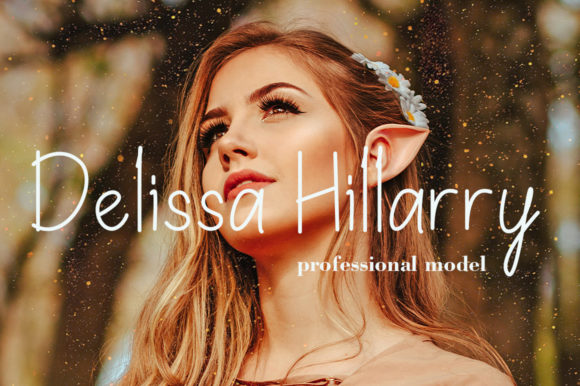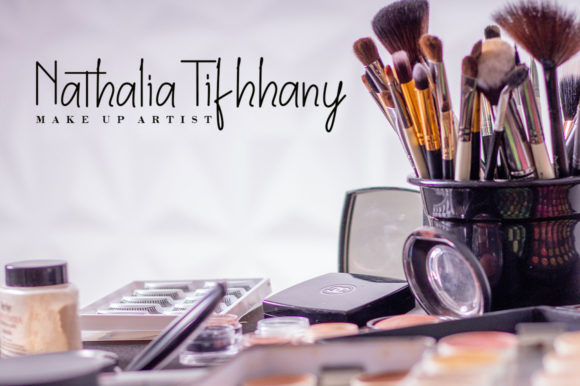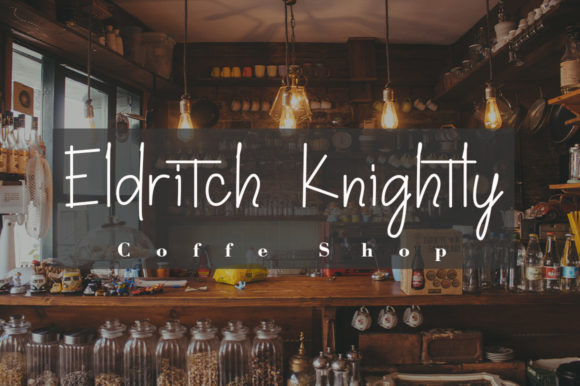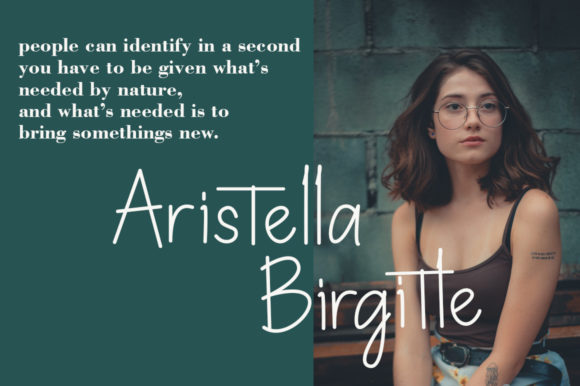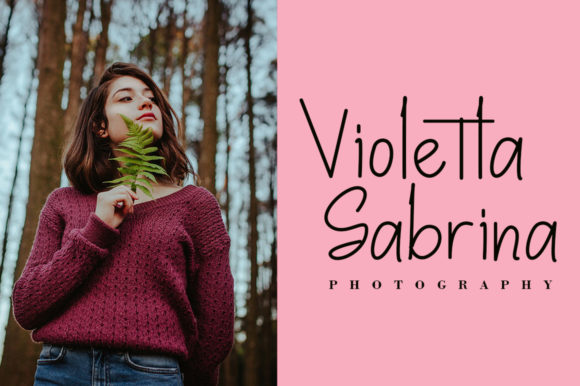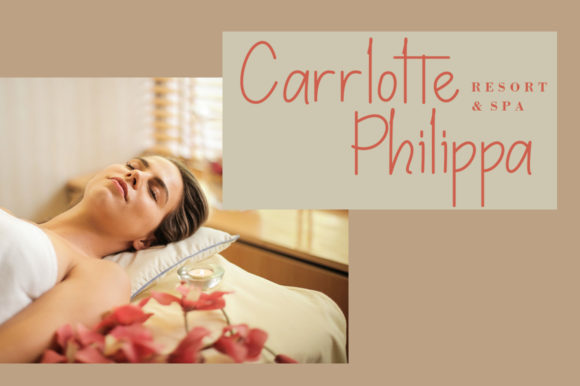
About Murangkalih Font
Port Bastwick is a simple script font that exudes a sense of beauty and elegance. Its unique design makes it a versatile choice for a variety of creative projects. Let’s revise this text into a SEO-friendly 400-word version:
Port Bastwick is a simple script font that stands out with its unique design. Crafted with meticulous attention to detail, Port Bastwick is designed to deliver the expected outcomes, making it a valuable addition to any font library. Whether you’re working on a branding project, designing a logo, or creating a website, Port Bastwick can add a touch of elegance and modernity to your creations.
One of the key features of Port Bastwick is its simple and elegant design. Unlike traditional fonts, Port Bastwick is designed with a unique script style that gives it a unique character. This simple and elegant design not only makes Port Bastwick stand out but also adds a personal touch to your designs, making them more engaging and appealing to the audience.
Port Bastwick is more than just a stylish script font. It’s a versatile design tool that can enhance the aesthetic appeal of your projects. Its elegant and modern look makes it suitable for a wide range of applications, from logos and branding to quotes, notes, tees, and any product design. The versatility of Port Bastwick makes it a valuable addition to any designer’s toolkit.
In addition to its aesthetic appeal, Port Bastwick also offers practical benefits. Its clear and legible design makes it suitable for both print and digital mediums. Whether you’re designing a business card or creating a website, Port Bastwick ensures that your text is always easy to read and understand.
Port Bastwick is not just a font; it’s a design asset. Its potential to enhance any creation makes it a valuable addition to any designer’s toolkit. With Port Bastwick, you can add a touch of elegance and sophistication to your designs, making them more appealing and engaging.
In conclusion, Port Bastwick is a simple script font that can enhance the beauty of any design. Its elegant and modern look, combined with its versatility and high readability, makes it a valuable addition to any font library. Whether you’re a professional designer or a hobbyist, Port Bastwick is a font that can help you create stunning and memorable designs. So, if you’re looking for a font that can add a personal touch to your designs, look no further than Port Bastwick.